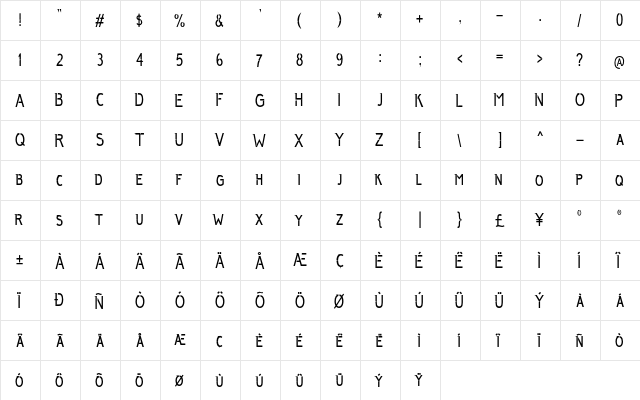
Anggun Sans Regular
Design Context for Anggun Sans Typeface
Anggun Sans offers clean, dependable letterforms without strong stylistic allegiance, making it a practical choice for designers who need flexibility.